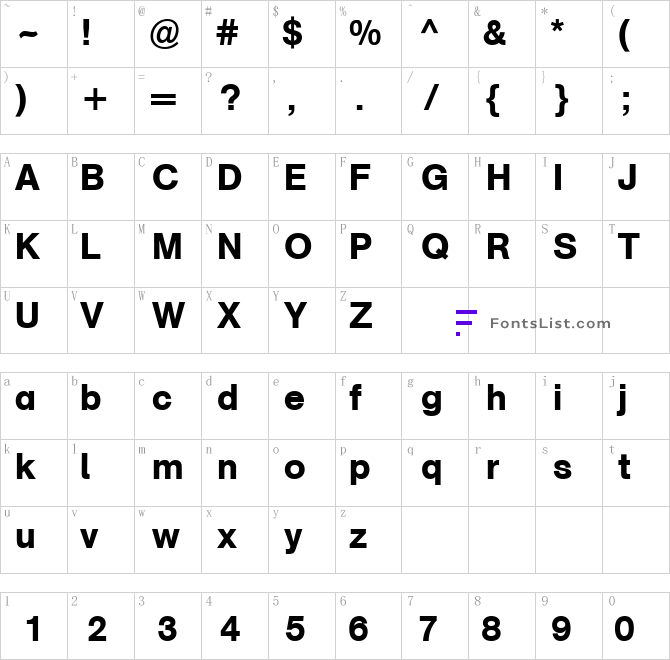
- Font Name:AG Schoolbook
AG-Schoolbook-Medium-A.ttf is a very beautiful artistic font, AG-Schoolbook-Medium-A.ttf is widely used in the design and printing of various books and pictures,AG-Schoolbook-Medium-A.ttf has a strong visual impact,AG-Schoolbook-Medium-A.ttf is a commonly used font in newspapers, magazines and books, and is used in posters, e-commerce Poster design, store design, logo design, font design and other fields.AG-Schoolbook-Medium-A.